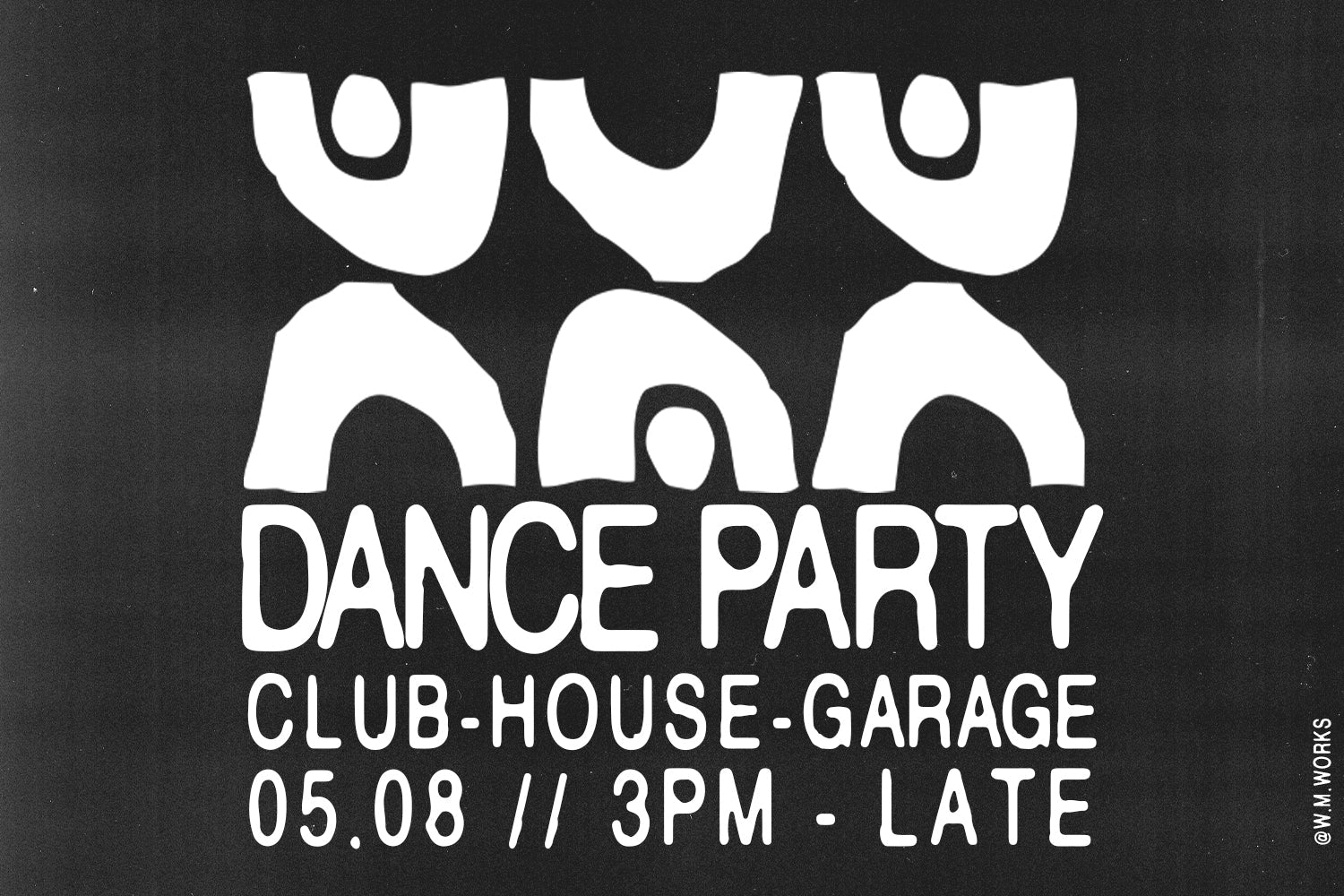
Grunge fonts give posters attitude: they add texture, personality and a lived-in edge that slick type rarely achieves. When you're hunting for the right grunge font — whether it's an ink-bleed condensed face, a messy hand-drawn marker, or a xeroxed display type — look for rawness that reads at large sizes, versatile weights or styles for hierarchy, and file formats that play nice with your workflow (.otf/.ttf). Consider whether you need alternates or contextual sets for natural imperfection. A great grunge font feels hand-made but stays legible across headlines, gig posters, zines and packaging, and pairs easily with a cleaner sans for balance. Below are 12 of the best grunge fonts for poster design, each with its texture, character set and ideal use spelled out.
1. Meat Typeface by HVNTER
Meat is a hand-drawn gritty typeface built for bold, in-your-face headlines. Its uneven strokes and tactile edges deliver a visceral, analog feel that works brilliantly on posters, album covers and DIY flyers. Key features: two rough styles covering A–Z, a–z, 0–9 and basic symbols, designed to retain texture at large sizes. Technical specs: supplied as standard font file(s) (check product page for .otf/.ttf). Best used for short copy and hero-type where raw character matters more than subtlety.
2. Sahir by AROKA TRUE INDEPENDENT STUDIO
Sahir is a display font crafted with a deliberately rough, grunge-inspired aesthetic—suited to punk posters and gritty flyers. It conveys chaos without collapsing legibility, making it a fit for short headlines and event branding. Standout features include aggressive texture, irregular edges and a visible hand-made vibe that pairs well with distressed textures or halftone backgrounds. Technical specs: single display font (likely .otf) featuring upper- and lowercase plus punctuation and numerals—ready for print and high-res digital layouts. Best used where attitude and readability must coexist, like band posters or underground events.
3. FELONY Condensed by w.m.works
FELONY Condensed channels ink-bleed and ribbon-press aesthetics into a compact display face. This is the grunge condensed font to reach for when horizontal space is tight: it feels worn and tactile while saving room, which makes it ideal for stacked headlines and narrow poster columns. Key features: ink-bleed texture, available in Caps and lowercase, includes numbers and basic symbols; delivered as an .otf file for wide compatibility. Technical specs: condensed proportions let you fit longer copy into tight layouts without losing the distressed look. Use it for gig posters, zines, and packaging where a narrow, aggressive voice is needed.
4. SMEGS Typeface by HVNTER
SMEGS is a messy, hand-drawn typeface with a spontaneous, scribbled energy—a good pick when you want a playful yet raw headline. It includes two styles covering A–Z, a–z, 0–9 and symbols, offering quick options for slightly different textures. Standout features are its imperfect strokes and informal rhythm, which read well at display sizes and bring personality to posters and streetwear graphics. Technical specs: delivered as standard font files. Best used for youth-focused posters, paste-ups, or layered over photographic backgrounds for an urban edge.
5. Bootzy Condensed TM by Type Mania
Bootzy Condensed TM is a rugged display sans with a DIY, bootleg spirit—made for underground flyers and gritty branding. Its condensed proportions and sturdy strokes make it a practical choice for bold headlines that need to occupy less horizontal space. Key features: rugged, sans-serif construction with a handmade roughness and strong legibility at large sizes. Technical specs: typically provided in .otf/.ttf formats; check the product page for the exact file list. Best use cases include gig posters, zine mastheads and merch where a no-frills, raw aesthetic is essential.
6. Casualte - Expressive Branding Font by Typeparties
Casualte is a hand-drawn display typeface that balances clarity and character—a fit for designers who want expressive letterforms without losing compositional control. It offers natural rhythm and balanced shapes that still feel hand-made, working across posters, branding and packaging. Standout features: expressive strokes, legible forms suited to short copy, and a friendly, human texture. Technical specs: delivered as font files (likely .otf/.ttf) and built for modern workflows. Best used where you want warmth and personality on posters without sacrificing readability.
7. Overprint TM by Type Mania
Overprint TM is a distressed typeface with uneven edges and a xeroxed finish that mimics photocopy artefacts. It includes two stylistic sets that rotate automatically with contextual alternates on, giving a built-in grunge effect without manual tweaking. Key features: xerox texture, automatic alternates for organic variation, and strong display presence. Technical specs: provided as standard font files (.otf/.ttf) with advanced OpenType features—ideal for designers who want built-in randomness. Best for gritty posters, zine layouts and tactical graphics where the photocopied, lo-fi aesthetic is part of the message.
8. Butterfly Culture - Script & Serif by The Branded Quotes
Butterfly Culture is a dual-font system pairing a gritty script with a complementary serif—built for designers who need contrast within a single family. The system blends underground aesthetics with neobrutalism, so you can mix a raw handwritten vibe with more structured serif headers. Standout features: paired script and serif styles that play off each other for posters, editorial spreads and branding. Technical specs: includes both font files as part of the family (check product page for formats) and supports typical character sets for display work. Use it when you want layered typographic texture and contrast in one package.
9. Goblin TM by Type Mania
Goblin TM delivers macabre, heavy-hitting display letterforms for doom-laden posters and horror-adjacent visuals. Its mood is dark and theatrical—a fit for album art, concert posters and niche logos. Standout features: chunky, characterful shapes with a sinister personality that reads well at large sizes. Technical specs: supplied as standard font files suitable for print and large-format digital, with numerals and punctuation included. Best used sparingly as a headline face paired to a neutral body font; strong when you want to conjure mood and atmosphere quickly.
10. Brivela by Uncarving Nation
Brivela Display is a loud, street-drippin’ font with chunky, hand-sketched letterforms that scream urban grit. It channels tagger flow and spray-paint aesthetics—a fit for skate, streetwear and gritty event posters. Key features: bold, chunky strokes and an expressive, hand-made attitude that stands out on posters and merch. Technical specs: delivered as display font files (look for .otf/.ttf on the product page) including standard character sets; designed primarily for display sizes. Best used where bold personality is the priority: billboards, posters and branding with a raw street edge.
11. Marker Typeface by HVNTER
Marker is a duo-style face available in Regular and Light, designed to emulate felt-tip marker lettering with organic stroke texture. It includes full A–Z, a–z, 0–9 and symbols—handy for pairing with display fonts or using as a friendly headline. Standout features: two complementary weights for hierarchy, natural marker texture and clean underlying forms that retain legibility. Technical specs: supplied in standard font formats; the two styles make it easy to create contrast without juggling different families. Best for posters, branding and social graphics where an approachable hand-made look is needed.
12. Dirty Bleed Display Font by Afterimagine
Dirty Bleed Display is built to overflow with raw energy—think smeared ink, torn edges and deliberate chaos. It's made for bold, attention-grabbing headlines where imperfection is the point. Standout features: heavy bleed effects, rough outlines and high-impact display shapes that read at large sizes. Technical specs: provided as display font file(s) (check the product page for .otf/.ttf and included character set) and intended for print and large-format usage. Best used for punk flyers, poster headlines and any design that benefits from a wild, unpolished finish.
How to choose the right grunge font for your poster
The best grunge font for one poster is the wrong one for another, so match the typeface to the job. For scale and layout: condensed grunge fonts like FELONY Condensed and Bootzy Condensed TM fit tight columns and stacked headlines, while chunky displays like Brivela, Goblin TM and Dirty Bleed hit hardest as single hero words. For texture: ink-bleed and xerox faces (FELONY Condensed, Overprint TM) carry a printed, lo-fi grit, while hand-drawn and marker types (Meat, SMEGS, Marker) read as raw and human. For a modern grunge look that stays readable, lean on faces that balance distressed edges with clean underlying forms, like Casualte or Sahir, and pair any aggressive display face with a neutral sans for body copy so the grit stays in the headline where it belongs.
What makes a good grunge typeface
A grunge typeface earns its keep when the texture survives at the size you actually set it. Look for rough strokes and irregular edges that hold their character on a large poster, OpenType features such as contextual alternates or multiple stylistic sets that introduce natural irregularity (Overprint TM rotates its sets automatically; several picks here ship two styles), and a full enough character set — A–Z, a–z, 0–9 and punctuation — so you aren't stuck mid-headline. File format matters for workflow too: .otf and .ttf drop into most design tools without fuss, and OpenType-rich faces give you grunge effects built into the type rather than faked with filters.
Conclusion: For posters that need attitude, these 12 grunge fonts cover a spectrum—from xeroxed textures and ink-bleed condensed faces to marker scripts and streetwise displays. Pick based on scale (condensed for tight layouts, chunky displays for impact), texture (ink-bleed, xerox, hand-drawn or marker) and workflow (.otf/.ttf + OpenType features). Want more options? Browse Studio 2am's fonts collection to mix, match and find the exact dirty, tactile voice your poster needs.